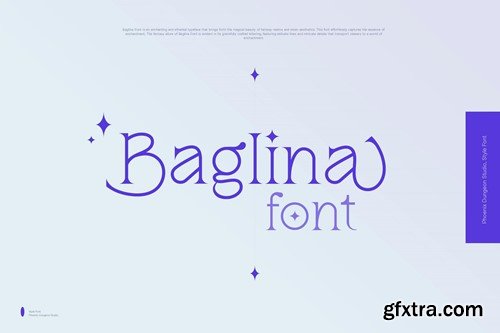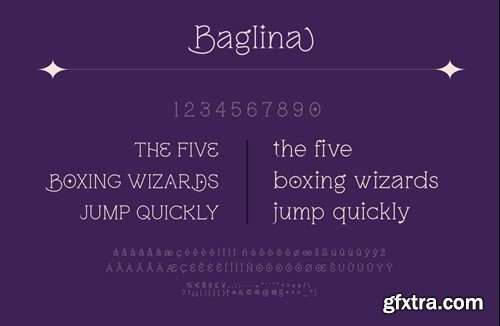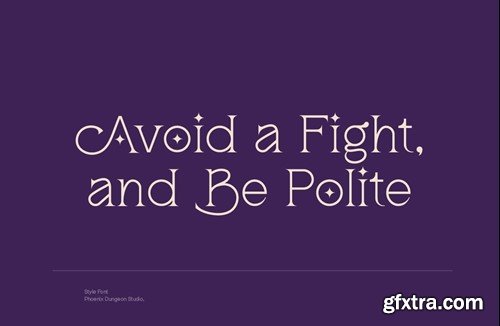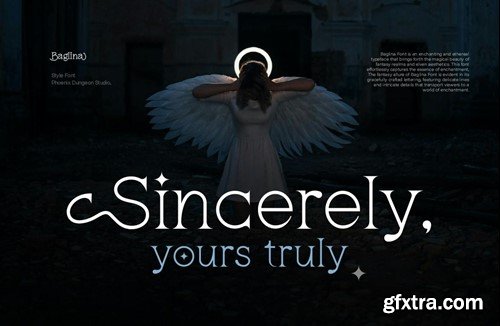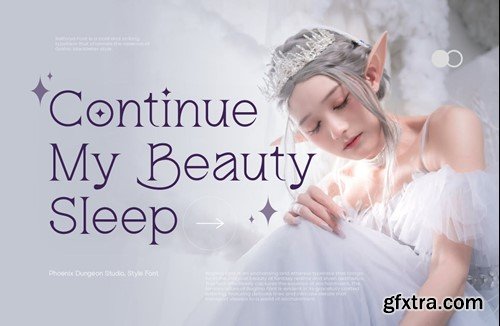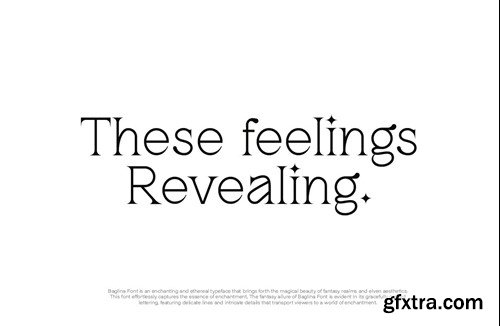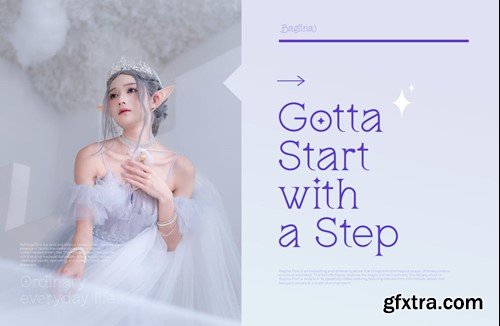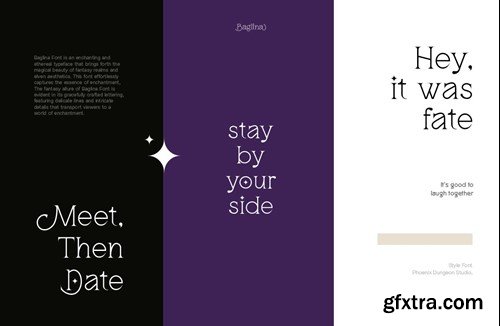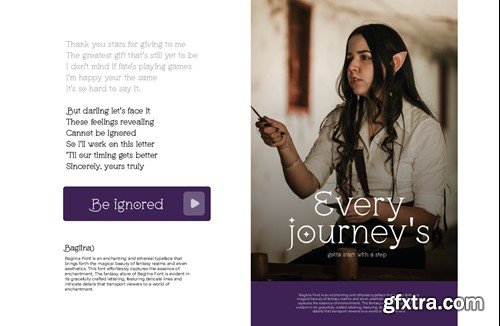
Baglina Font H4YZBJK
Baglina Font
Baglina Font is an enchanting and ethereal typeface that brings forth the magical beauty of fantasy realms and elven aesthetics. This font effortlessly captures the essence of enchantment, The fantasy allure of Baglina Font is evident in its gracefully crafted lettering, featuring delicate lines and intricate details that transport viewers to a world of enchantment. What’s in the package : Thank you